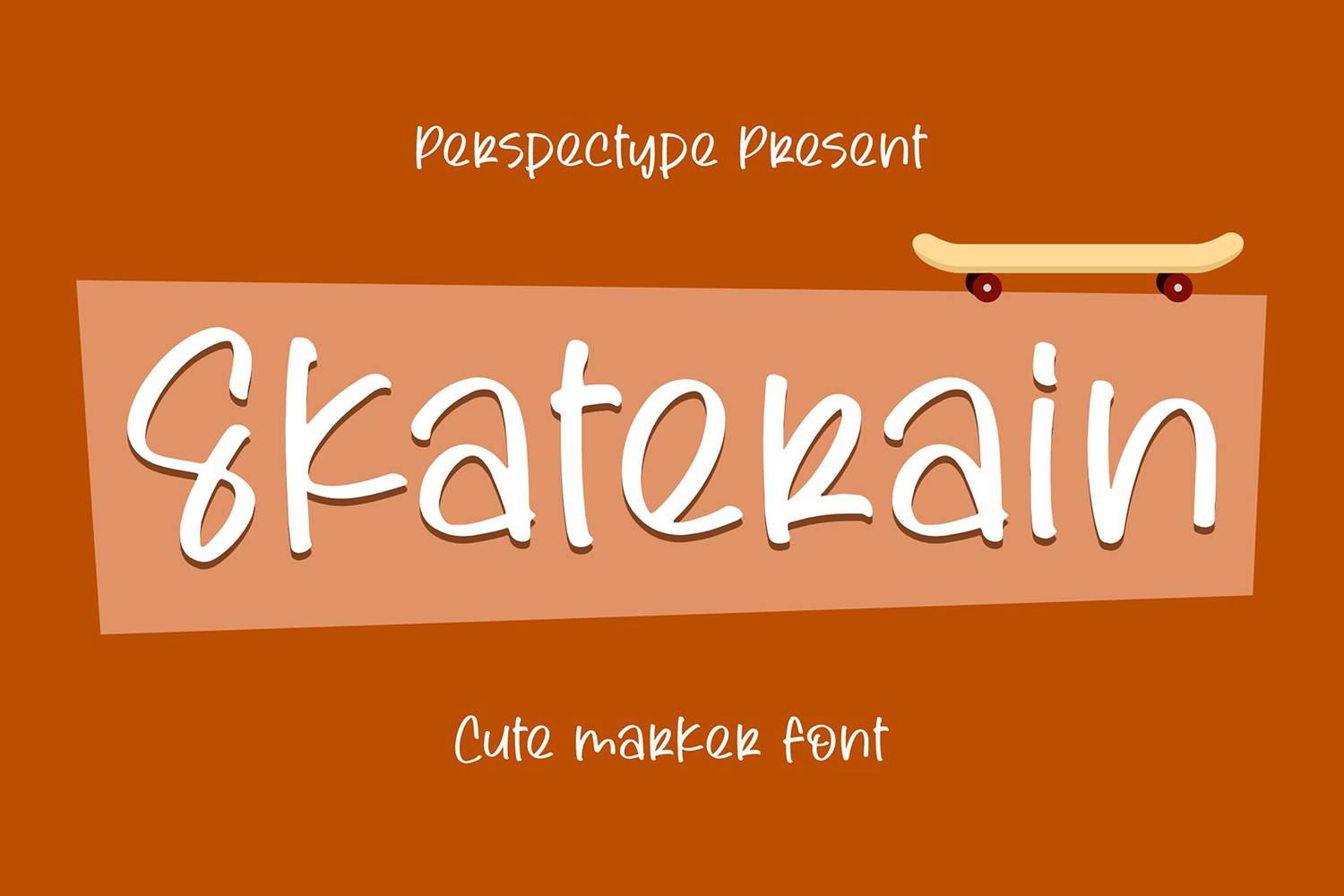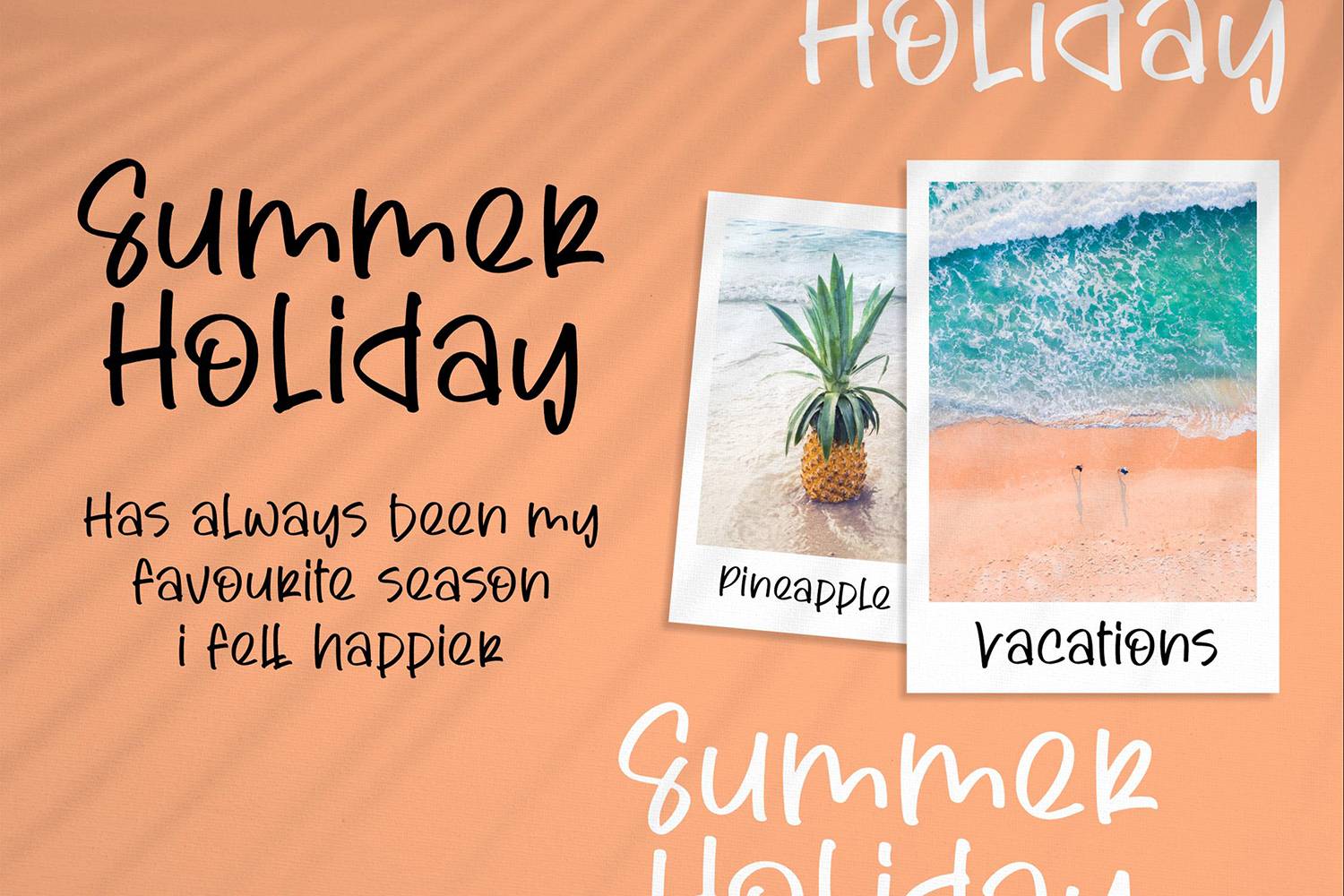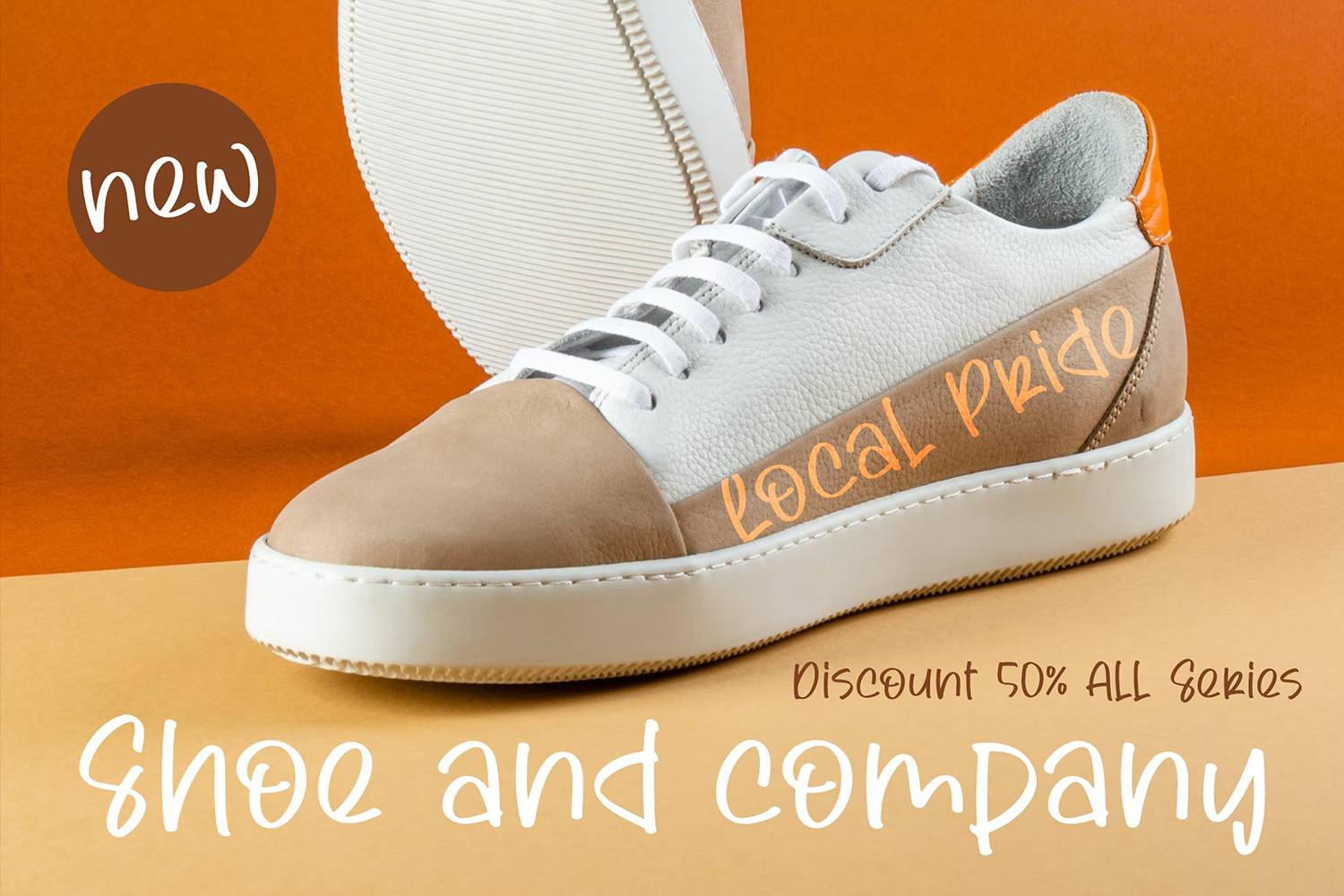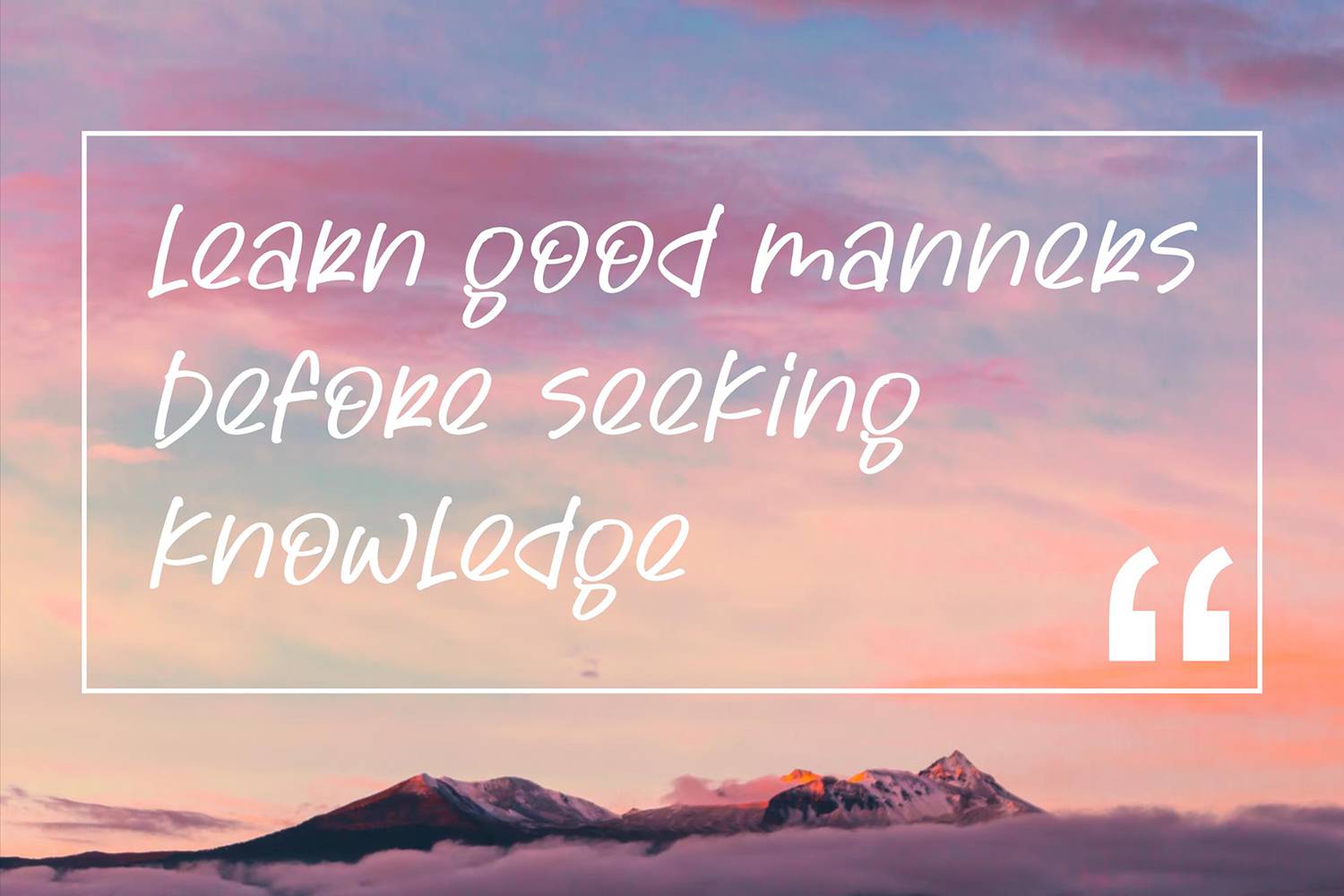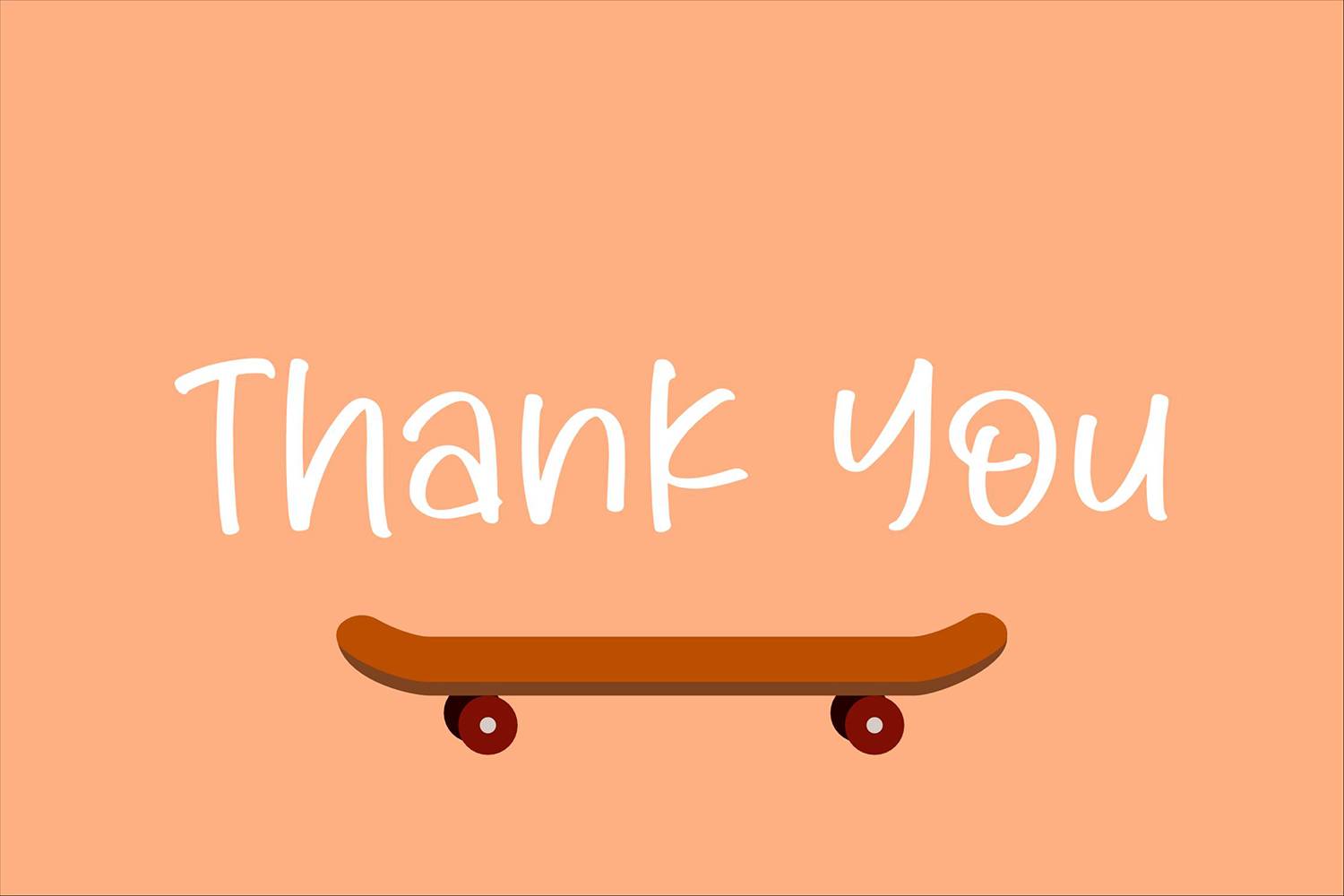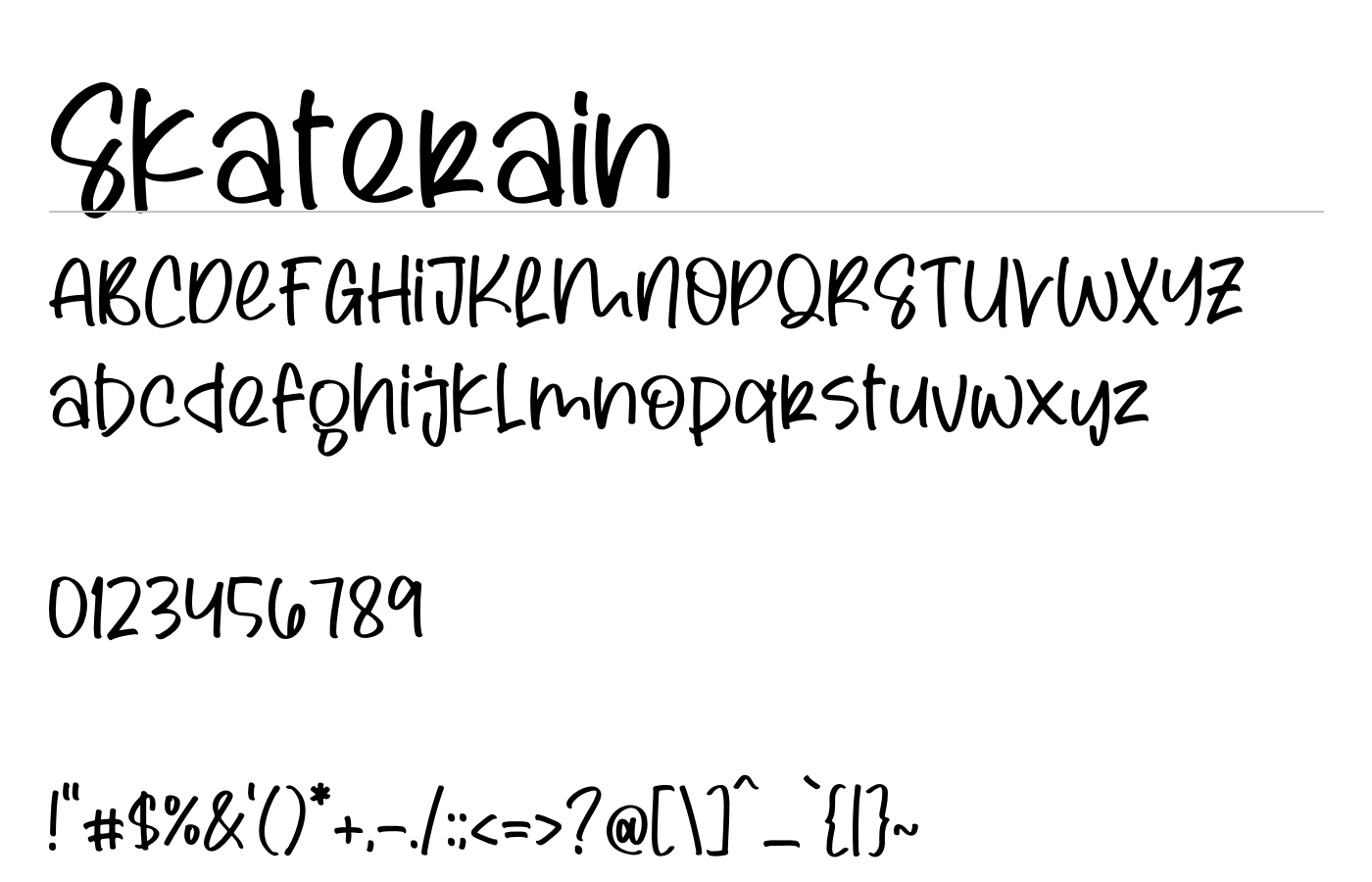
Skaterain is a playful, casual handwritten font with a light weight and an upright, informal style that feels friendly and approachable. Its tall x-height, uneven stroke thickness, and quirky letter shapes give it a youthful, energetic vibe, making it ideal for creative branding, kids' products, or informal editorial designs. This font works well in headlines, logos, and packaging where a lively, personal touch is desired.
Skaterain Font
About Skaterain Font